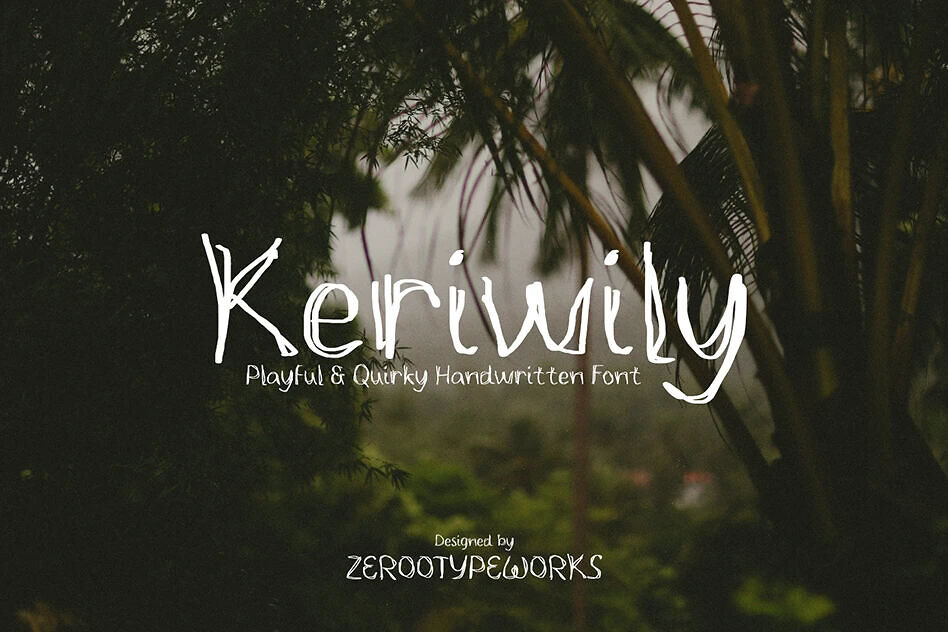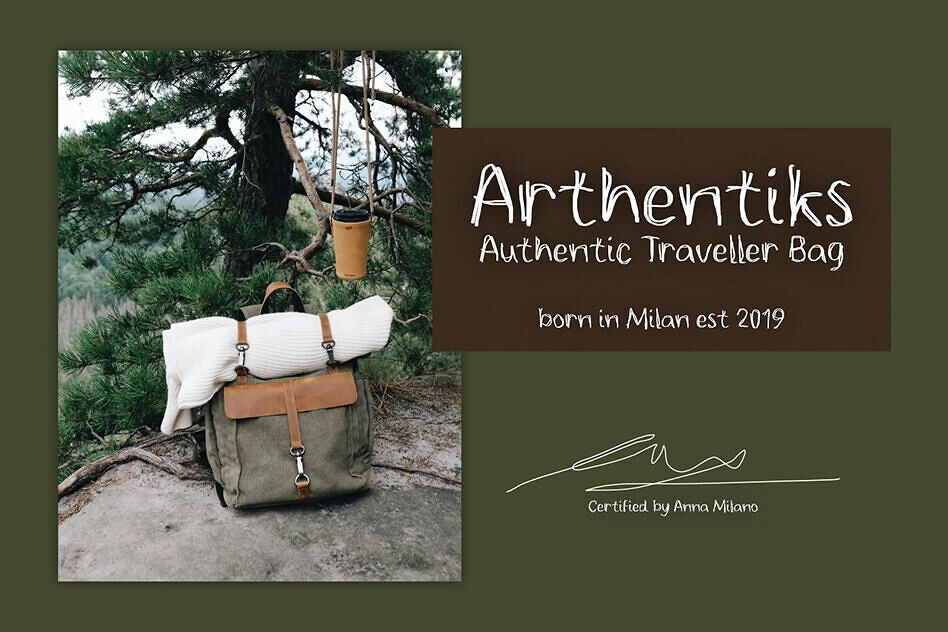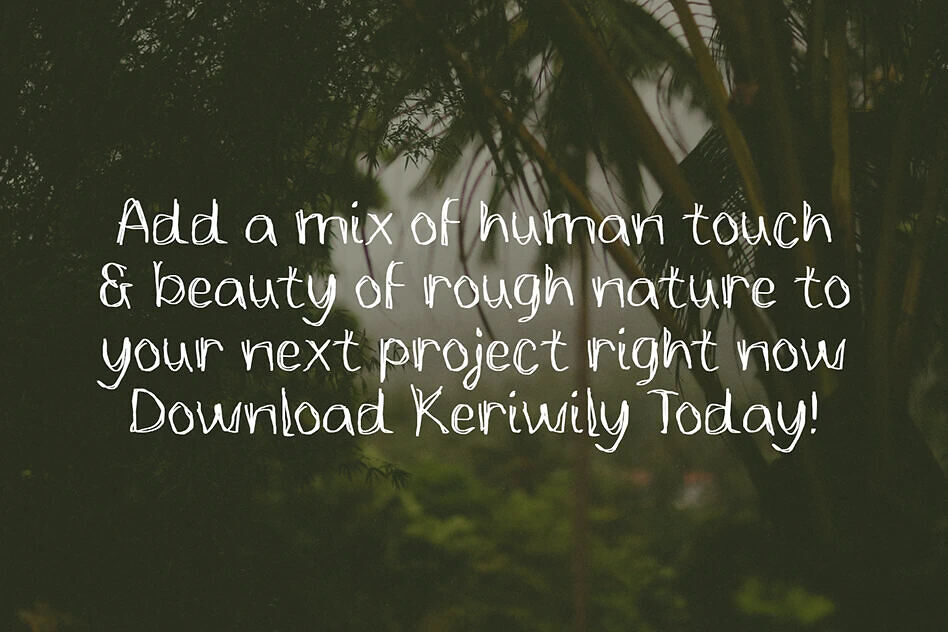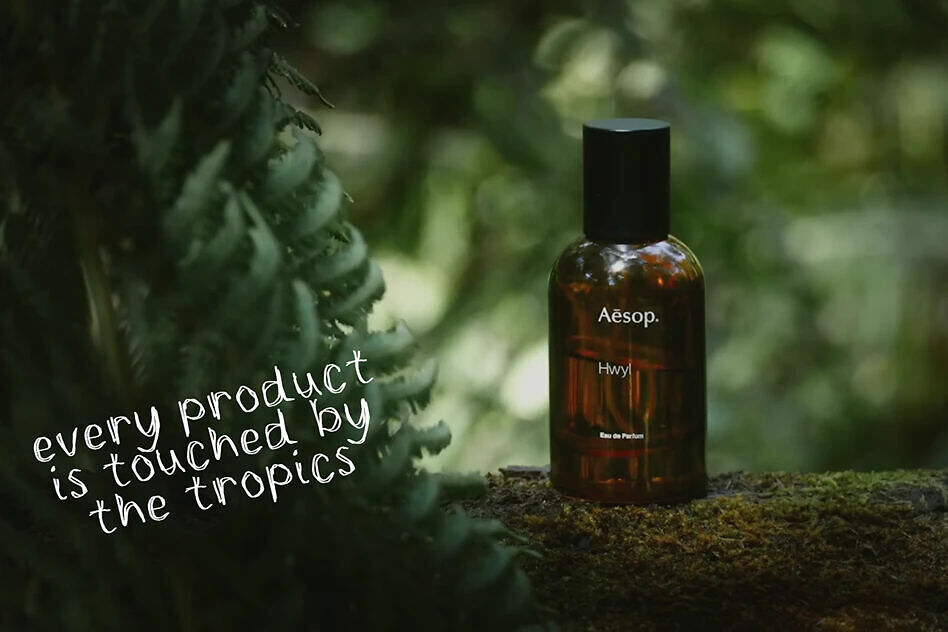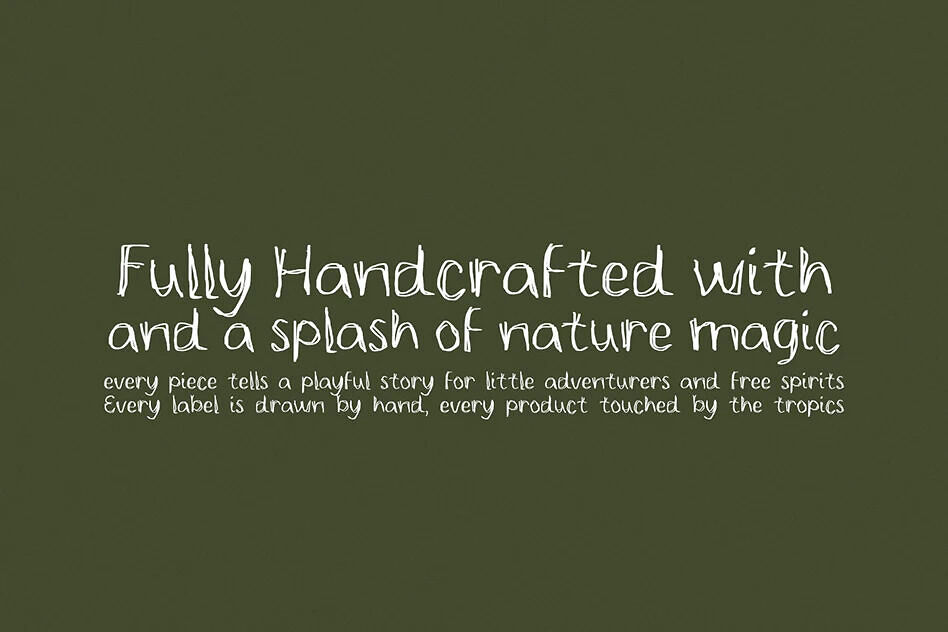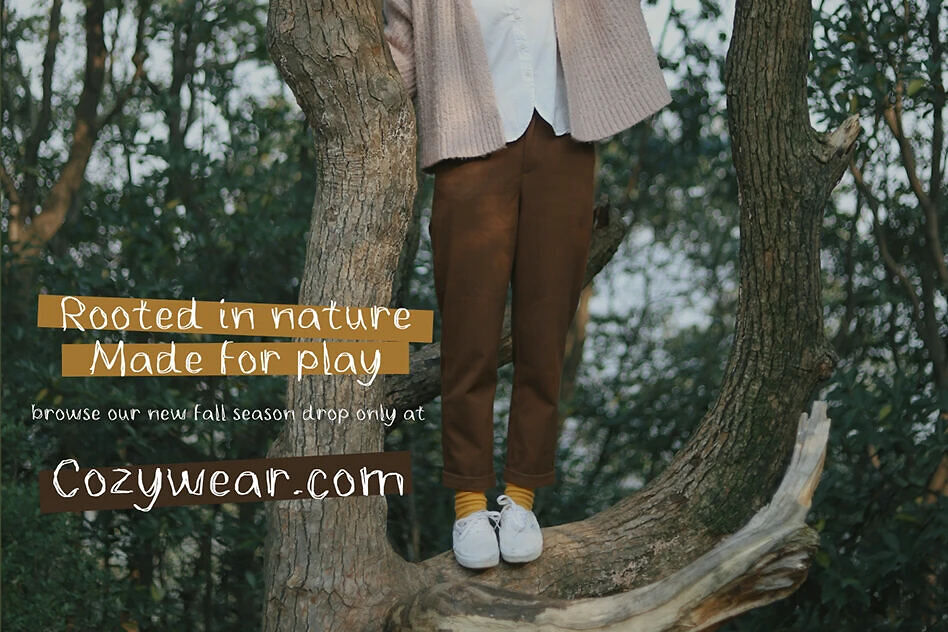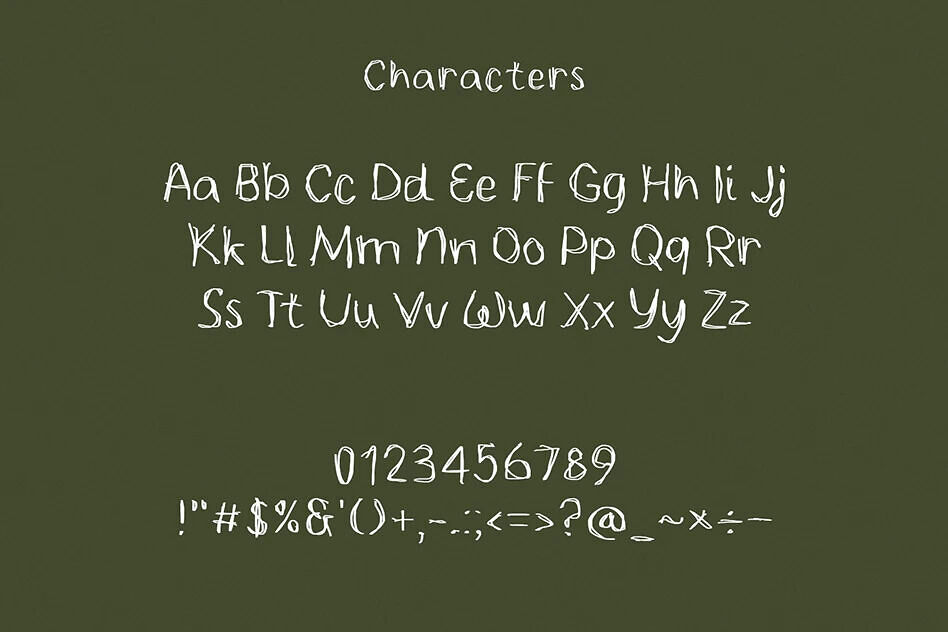
Keriwily is a playful handwritten font that brings a natural, organic vibe to your designs. Its irregular strokes and free-flowing style are perfect for nature branding, lifestyle blogs, product packaging, and children’s content.
Whether you’re creating for Instagram, a cozy book cover, or eco-friendly labels, Keriwily gives your project a heartfelt, human voice that stands out in a polished digital world.
If your brand craves authenticity and character, Keriwily is ready to speak for you. Add a human touch to your next project download it now and let your words wander wildly. Start crafting with emotion before someone else grabs the vibe.